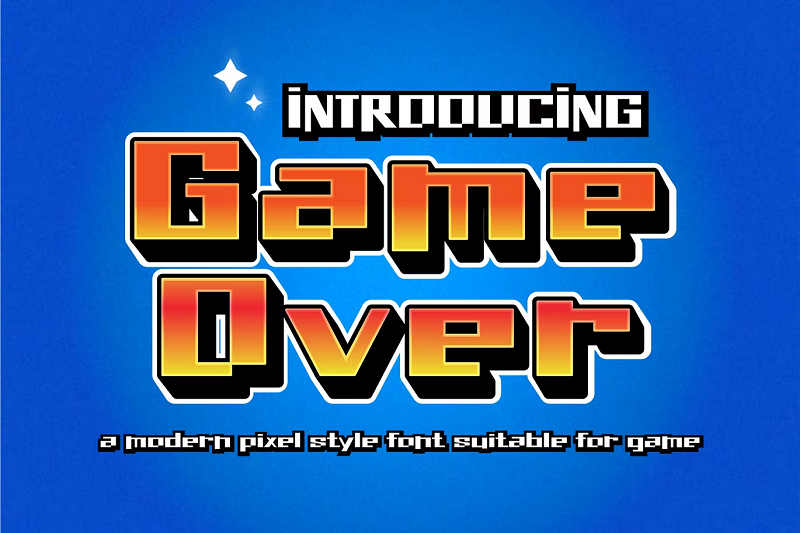
Looking to level up your designs with a cool pixel font? Whether you’re creating a gaming-themed poster, or you want to give your designs an 80s retro feel, pixel fonts can be a great choice.
However, finding the perfect pixel font can be a struggle. In this article, we’ll be taking a look at 22 of the best pixel fonts available for every type of design.
1. Game Over – Our Top Pick
Why it’s our top pick
This is one of the most popular pixel-style fonts on Envato Elements, and it’s clear why. It’s a classic pixel typeface with letterforms that also look as if they’re built from blocks.
It pays homage to the kind of vintage, low-res bitmap fonts you’d see on classic arcade games, but unlike these old-school typefaces, Game Over has a modern twist that makes it more suited to more modern designs.
2. Pixel Bit
Pixel Bit is a unique, futuristic display font with an interesting design. The letters are blocky with straight edges and square corners, but it’s the alternates that give this typeface its character.
You can use the alternates to add cool ‘digital dot pixels’ on any side of each letter: the top, bottom, right, or left. Once you add the digital dot pixels, it makes it look as if the letters are crumbling away into cyberspace and breaking down into their component pixels. Also, it’s a really cool effect that would work well on sci-fi movie posters and futuristic games.
3. Mainport Pixelate
Mainport is a display font that takes inspiration from the pixelated RPGs of old. It’s extremely nostalgic and reminiscent of old-school 2D RPG games. The letterforms look as if they’ve been crafted with the bare minimum number of pixels. The download includes OTF and TTF files, glyphs, and also uppercase & lowercase letters, numerals, and punctuation.
4. Pixel Craft
Pixel Craft is a cute, quirky pixel font with playful letterforms and intentionally messy strokes. It’s laid back and relaxed and is perfect for kids’ game designs, posters, and also digital product designs.
5. Pixel 1 Color Font
Pixel 1 is a Color SVG font. It looks as if the designer has built it out of 3D pixel blocks. For the uninitiated, Color or SVG OpenType fonts are a new type of font technology that allows designers to incorporate extra details like colors, gradients, and textures into the file. As a result, they’re able to create elaborate, highly-detailed fonts with cool 3D effects just like this one.
6. Pixels Gone Bad
Pixels Gone Bad is a chaotic decorative font that’s perfect for posters, titles, and other large displays. The designer has made it look as if the glyphs are constructed from dozens of individual pixel blocks that are going haywire. It’s a typeface that’s disorderly, orderless, and also full of energy.
7. Bit Game Retro Pixel Font
Bit Game is another retro typeface that emulates old-school pixel fonts. The quirky pixelated characters will perfectly fit for all your gaming-related designs. They could also work well on book covers, brand logos, posters, etc.
8. Hackbot Pixel Font
Hackbot is a retro-futuristic pixelated font that simultaneously looks like it belongs in both the future and the past. The gaps between blocks in the letterforms make them seem as if somebody has built them from individual pixels, but unlike real bitmap fonts, it’s fully scalable and looks great in any resolution. Use it in your game promotional designs, retro artwork, posters, and more.
9. Tickerbit Retro Font
Tickerbit is another quirky modern pixel font by designer That That. It comes in four styles: Regular, Italic, Mono, and Mono Italic. The design is simple but interesting and eye-catching. It’s well-suited to use in graphic novels, game graphics, and retro designs.
Use Pixel fonts for posters and headers
Pixel fonts are impactful, retro, and also very cool. However, they work much better on posters and header texts than they do as part of larger bodies of text. If you’re thinking of using a pixel font in your designs, consider using them as your header texts and pair them with a more readable and basic font for larger blocks of text.